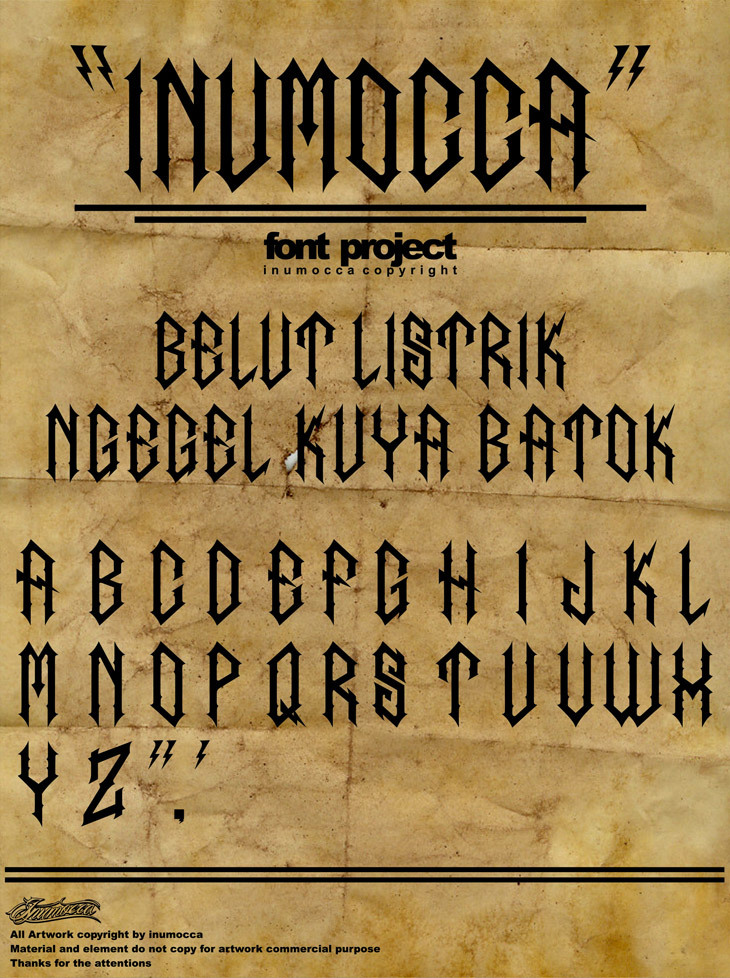
inumocca
Inumocca by High-Logic.com is a free medieval blackletter font with an exceptionally tall, narrow silhouette and a severe Gothic edge. Needle-sharp peaks, forked feet, and angular cuts create an engraved, architectural finish.
A dark fashion brand or metal label could use its dense vertical forms to build a stark, ceremonial identity with strong historical overtones. It also suits concert posters and game graphics rooted in medieval horror, since the pointed details can echo weapons, towers, and heraldic ornament. In publishing, it is especially apt for fantasy book covers, where the lettering can become part of a fortress-like decorative border.